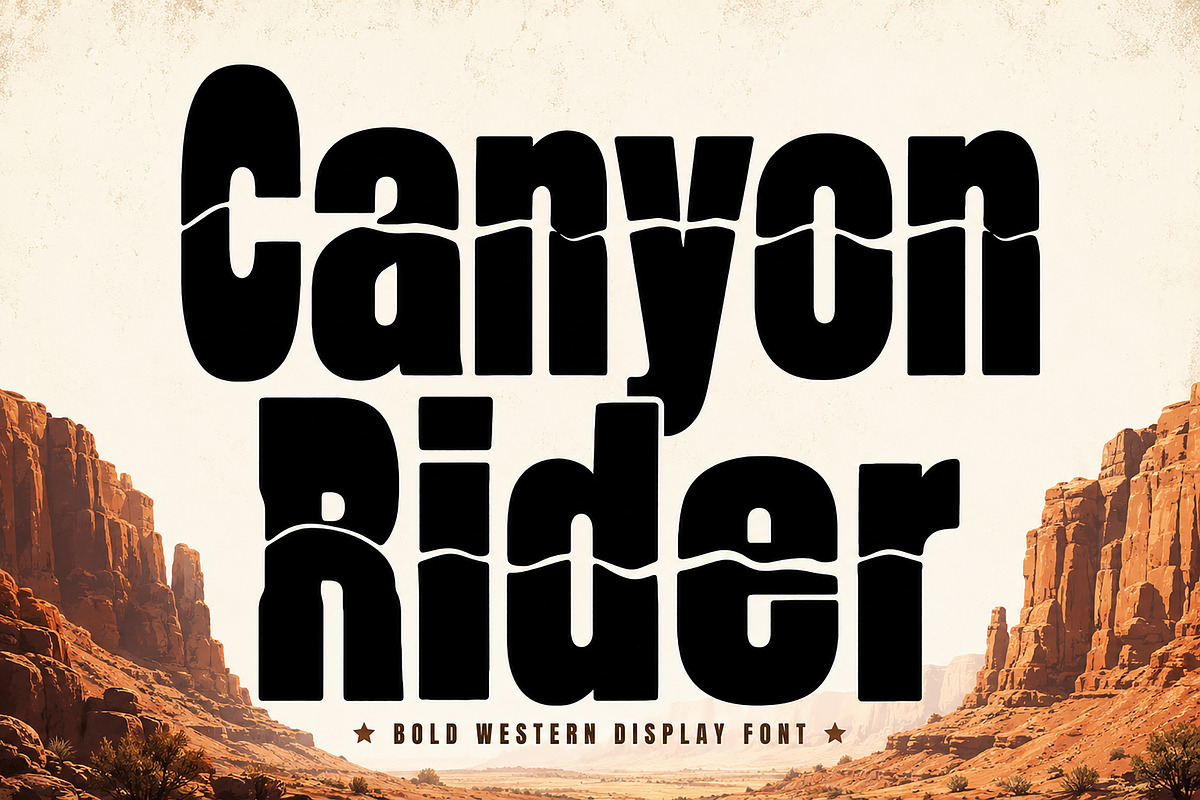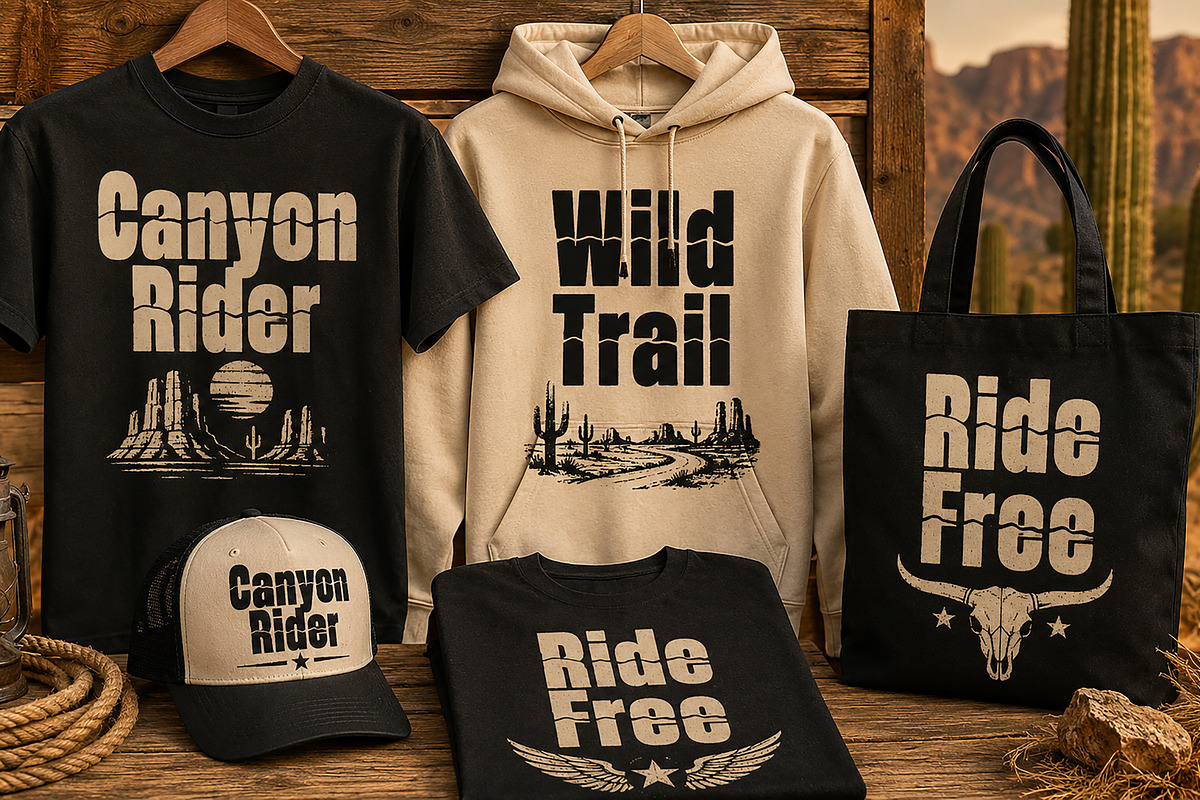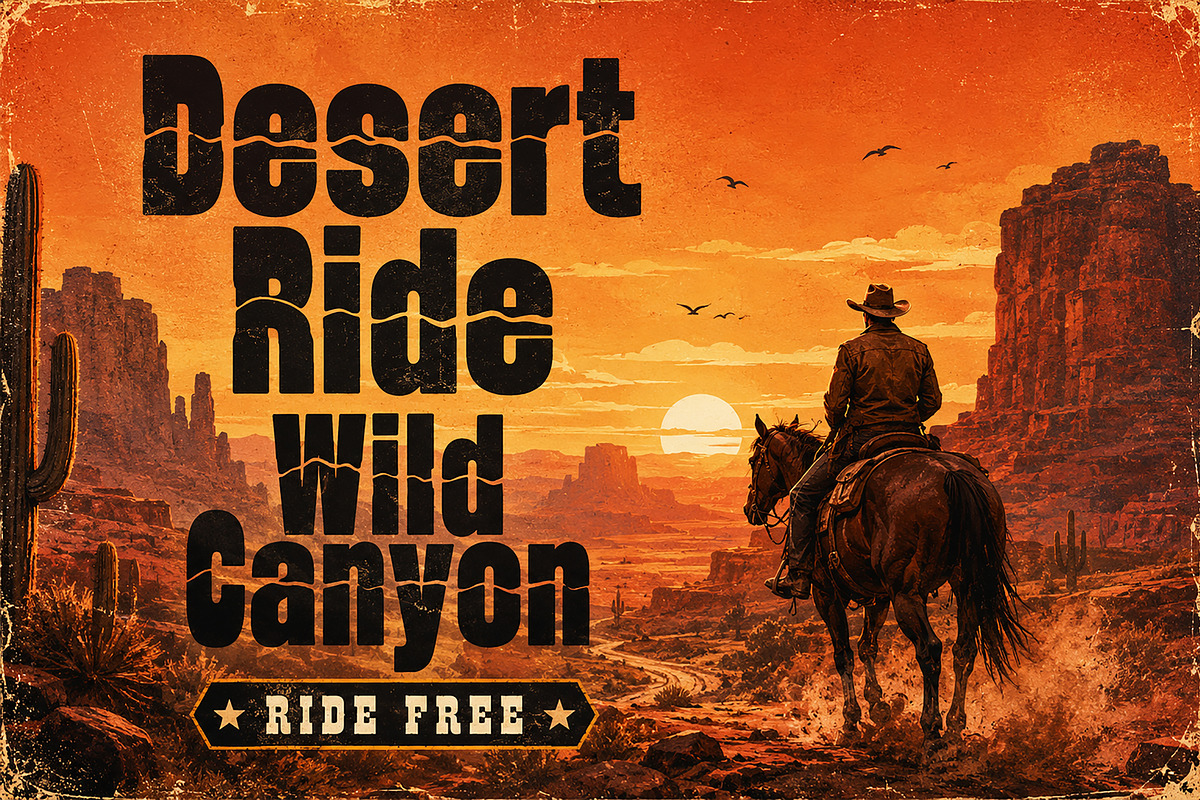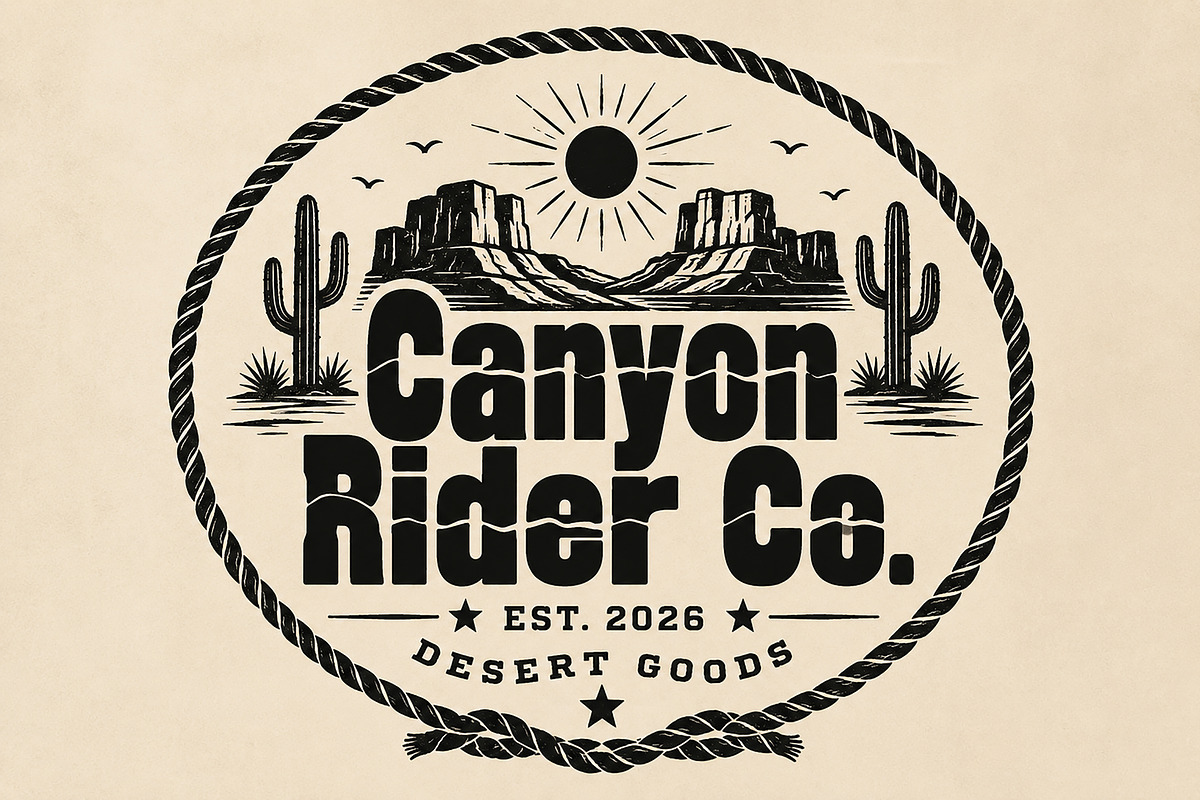
Canyon Rider
Canyon Rider – Bold Western Display Font
Canyon Rider is a bold western display font inspired by rugged desert landscapes, vintage cowboy culture, and adventurous frontier spirit. Featuring strong letterforms, unique canyon-cut details, and a distinctive western personality, this typeface is designed to make a powerful statement in any project.
Perfect for logos, branding, apparel designs, posters, packaging, signage, album covers, social media graphics, and outdoor adventure-themed projects. Whether you're creating a western-inspired brand, a rustic logo, or a bold vintage poster, Canyon Rider delivers authentic character and unforgettable style.
Its striking silhouette and handcrafted western feel make it ideal for designers looking to add a touch of desert heritage, cowboy charm, and vintage Americana to their work.
Western Logos
Vintage Branding
Apparel & Merchandise
T-Shirt Designs
Posters & Flyers
Album Covers
Adventure Brands
Ranch & Farm Branding
Outdoor Products
Retro Marketing Materials
High-Quality Display Typeface
Bring the spirit of the wild frontier to your next creative project with Canyon Rider.